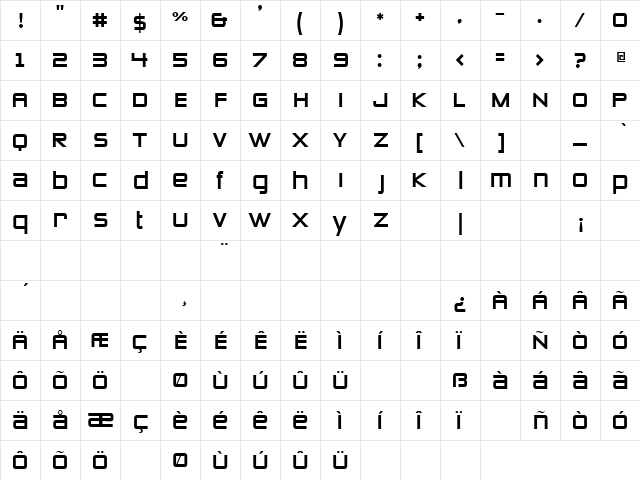
Zero Twos Regular
Design Context for Zero Twos Typeface
Zero Twos is a composed and adaptable typeface that performs quietly and consistently across a wide range of design contexts.